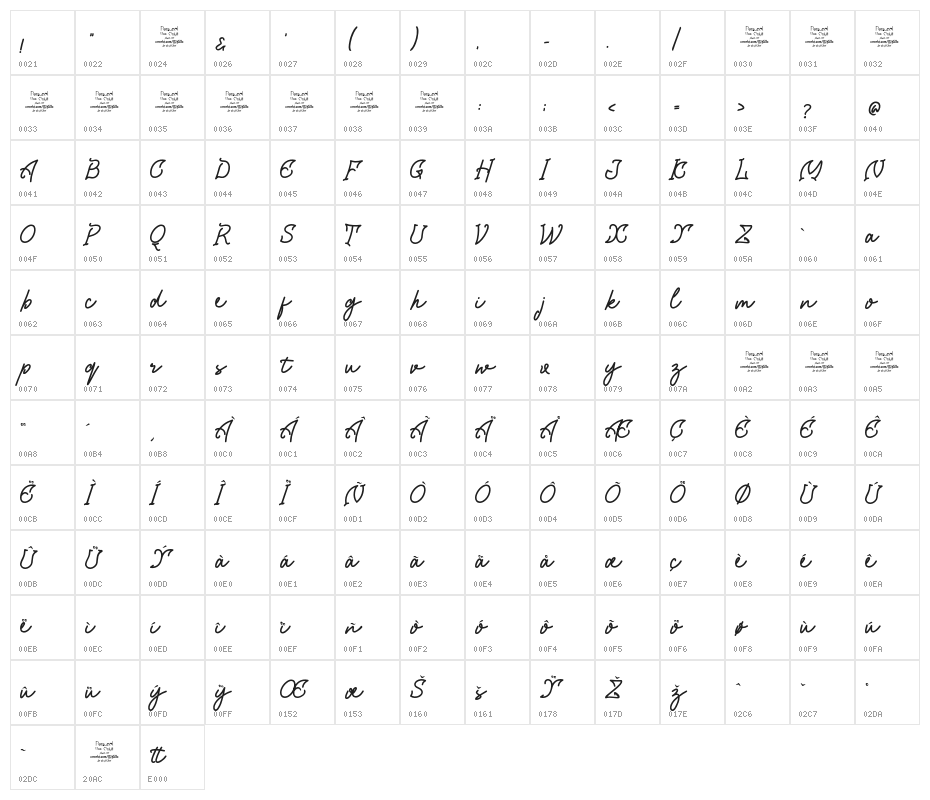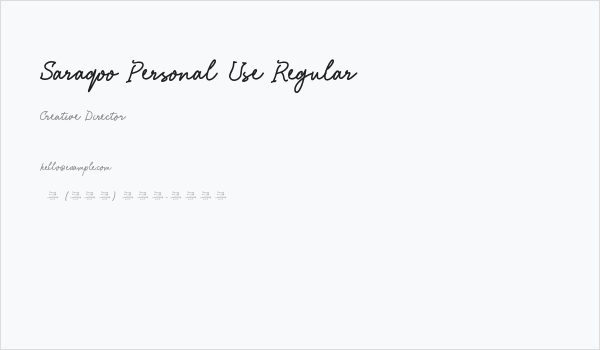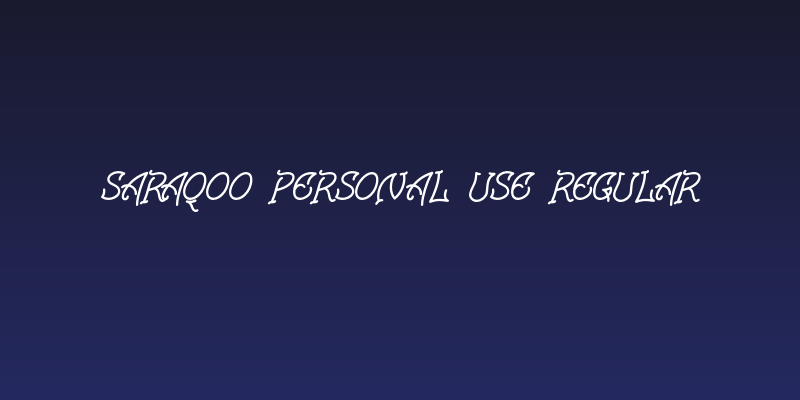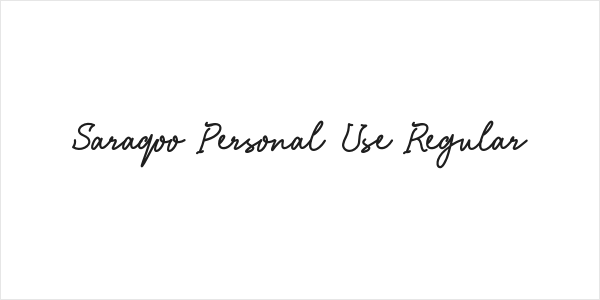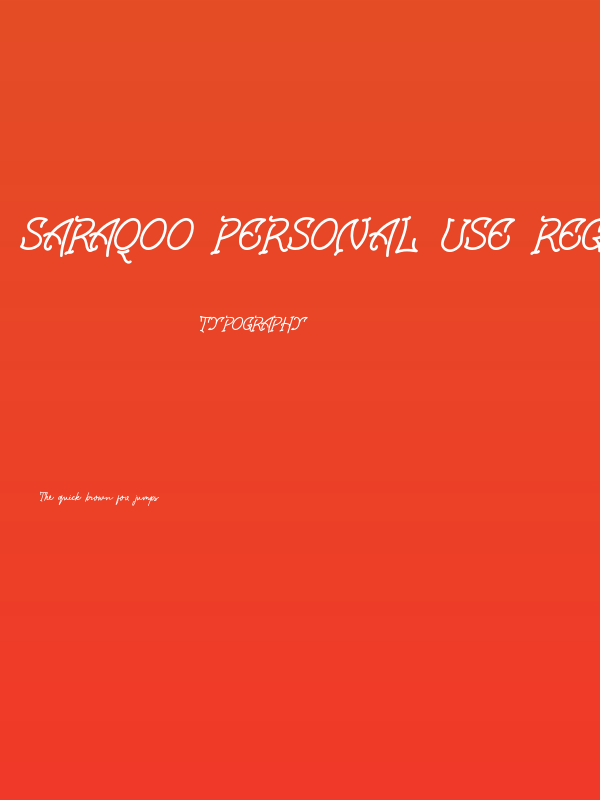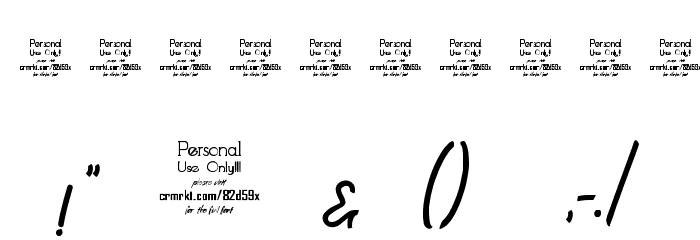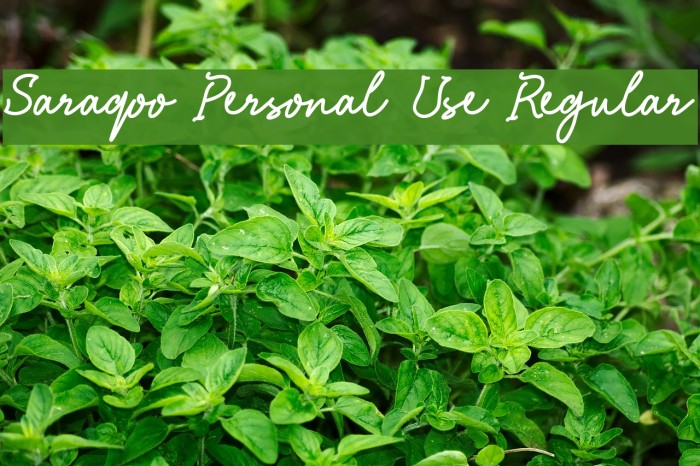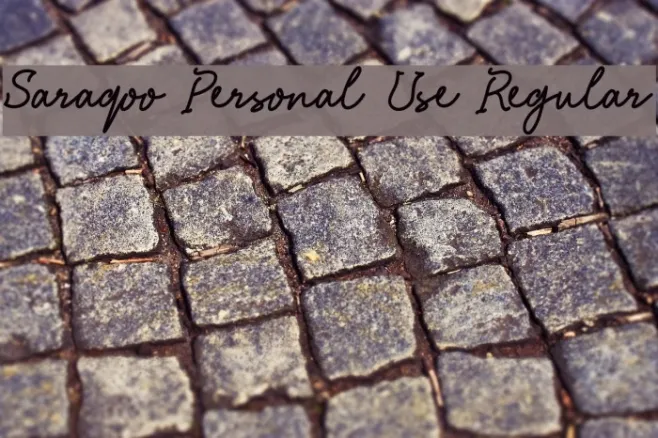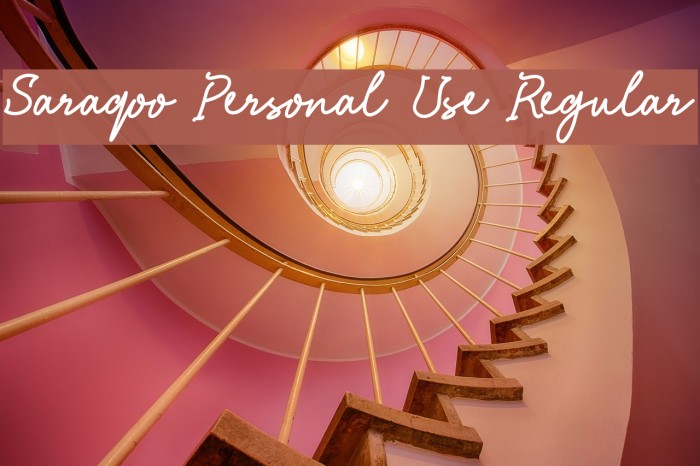
Saraqoo Personal Use Regular Font
Saraqoo Personal Use Regular Description
This font features a flowing, cursive style with elegant, sweeping strokes that give it a handwritten appearance. The uppercase letters are bold and dynamic, with distinctive loops and flourishes that add a touch of sophistication. The lowercase letters maintain a consistent flow, enhancing readability while preserving the artistic flair. The numerals and special characters are crafted with the same attention to detail, ensuring a cohesive look across all text elements. This font is ideal for projects that require a personal, artistic touch, such as invitations, greeting cards, or branding materials.
| Use Case | Logos, Headlines, Artistic projects |
| Proposed Projects | Ideal for invitations, greeting cards, branding, and artistic projects. |